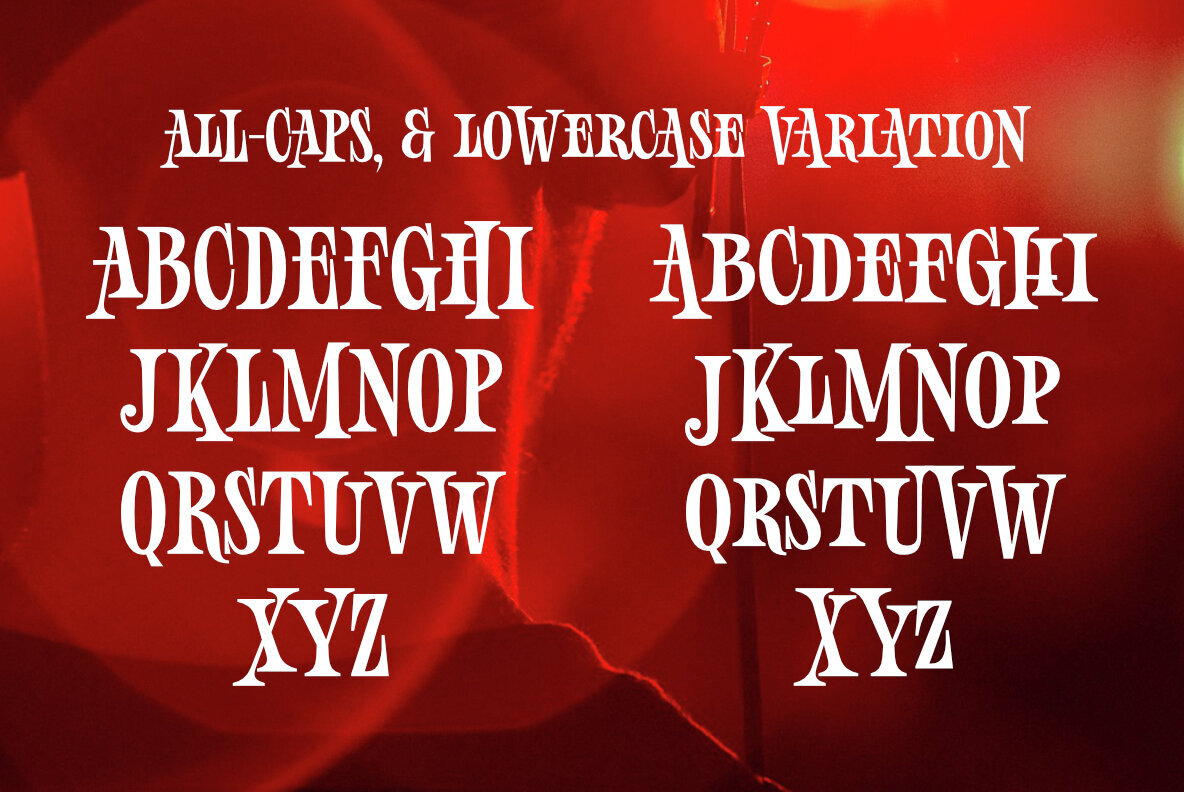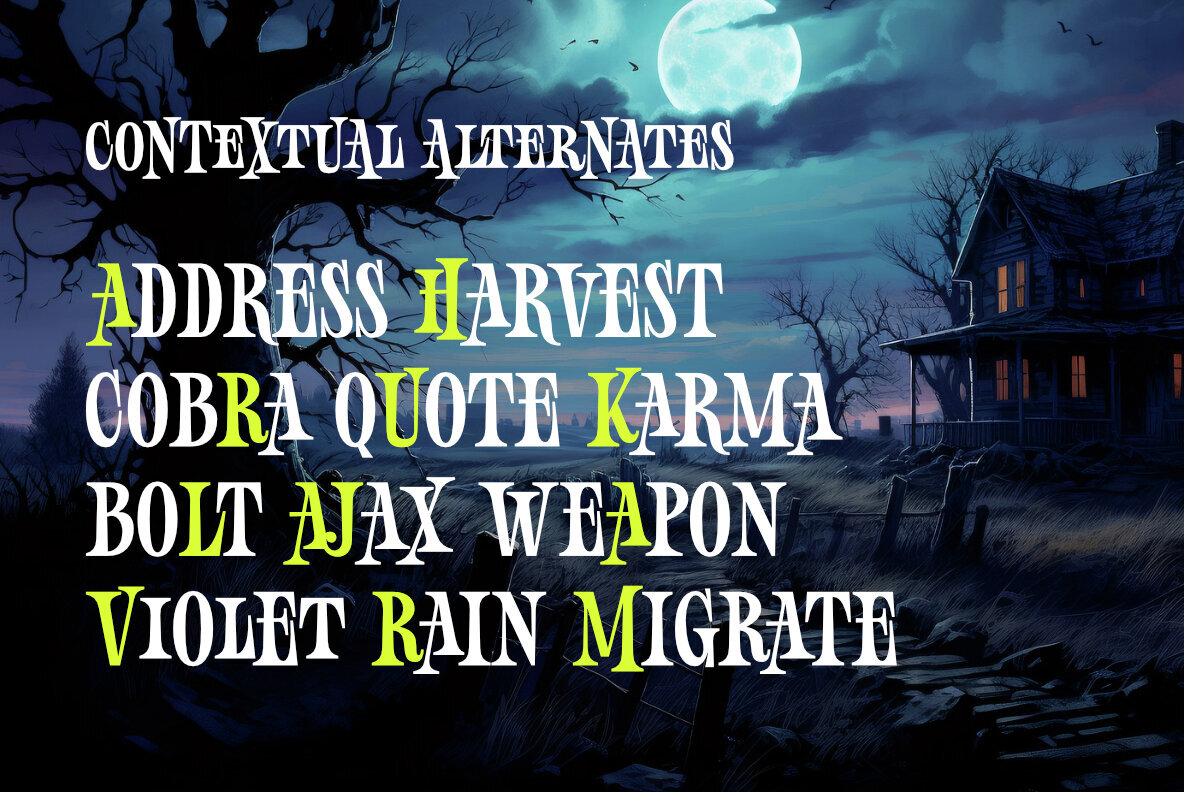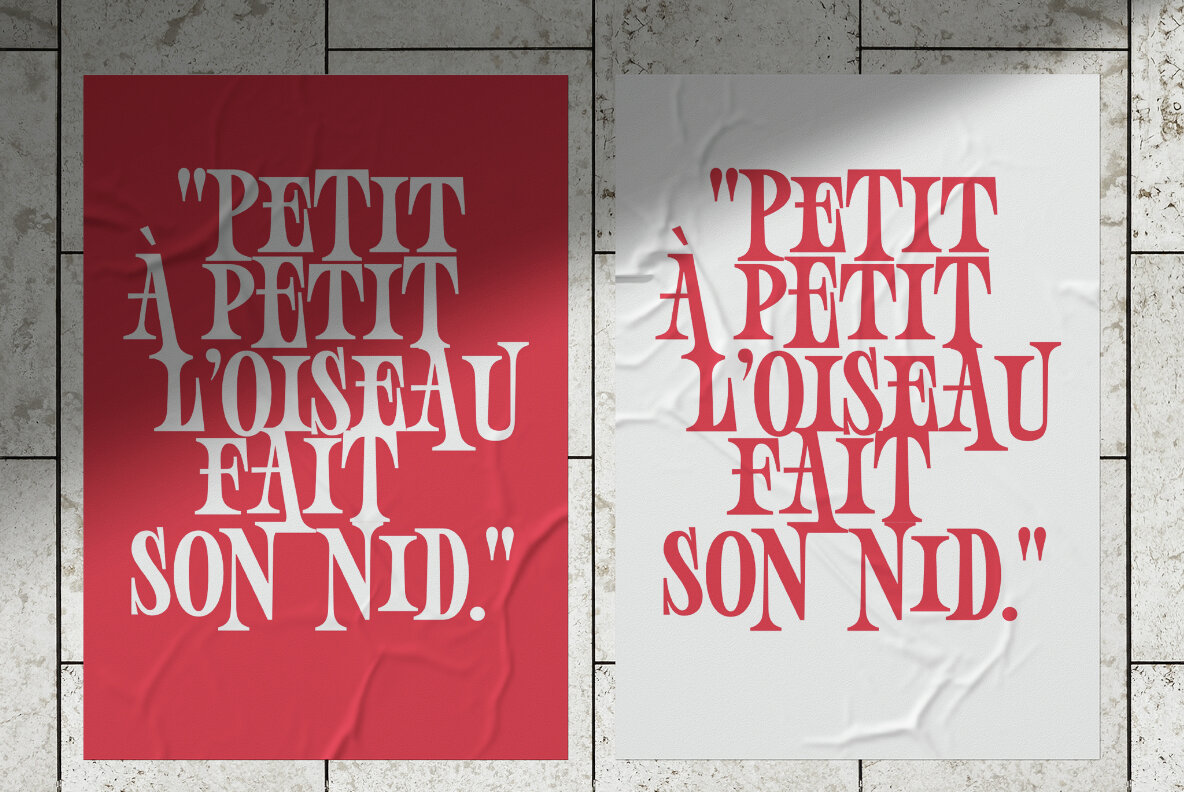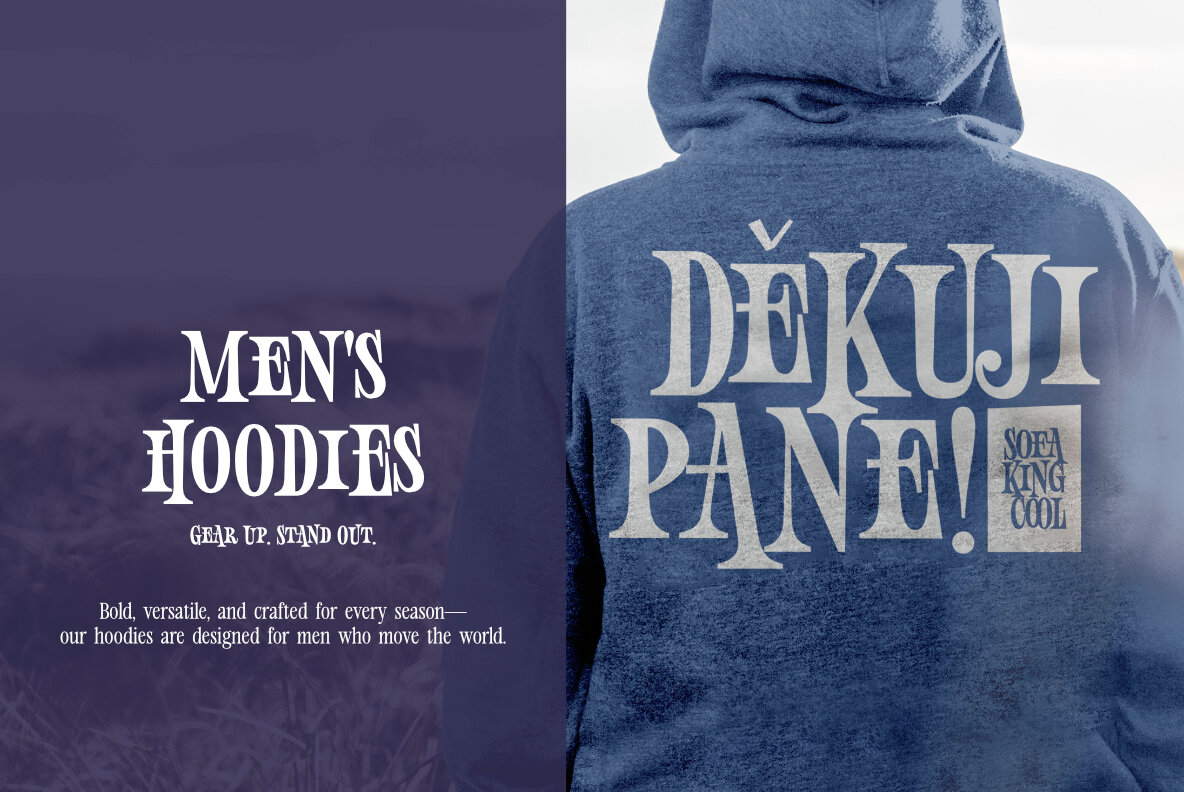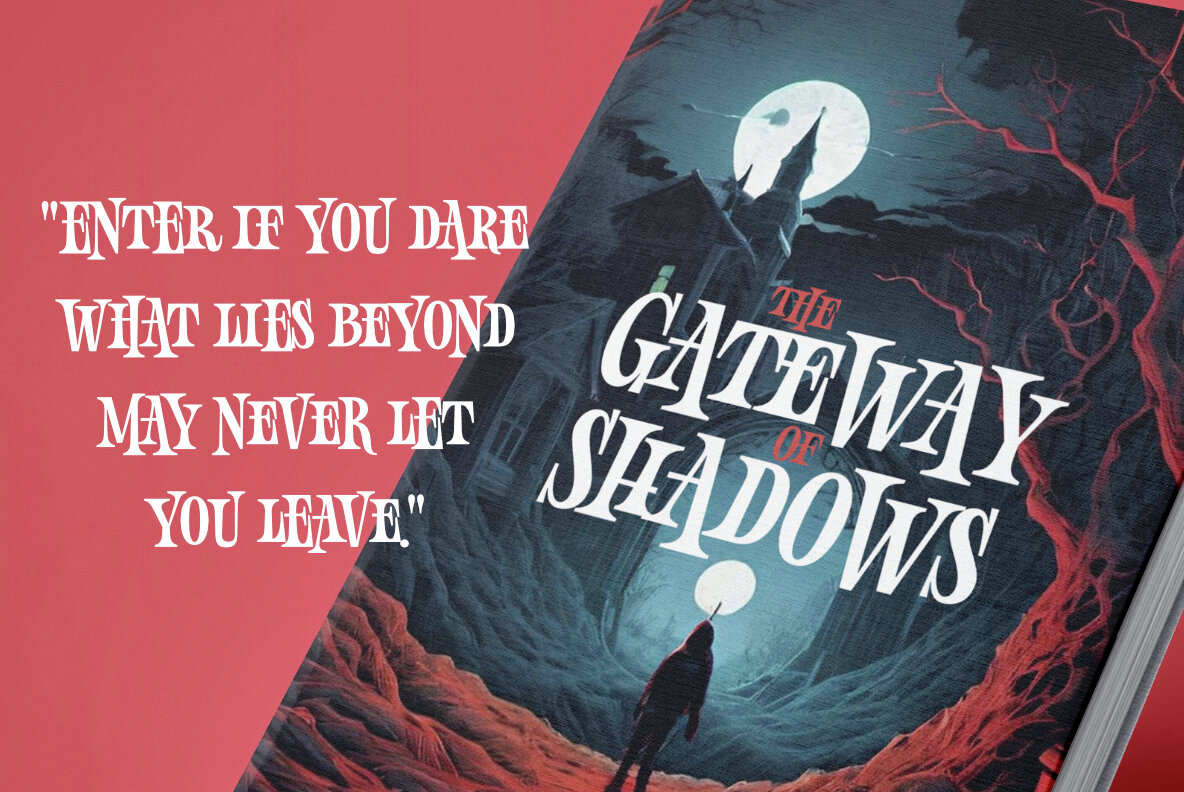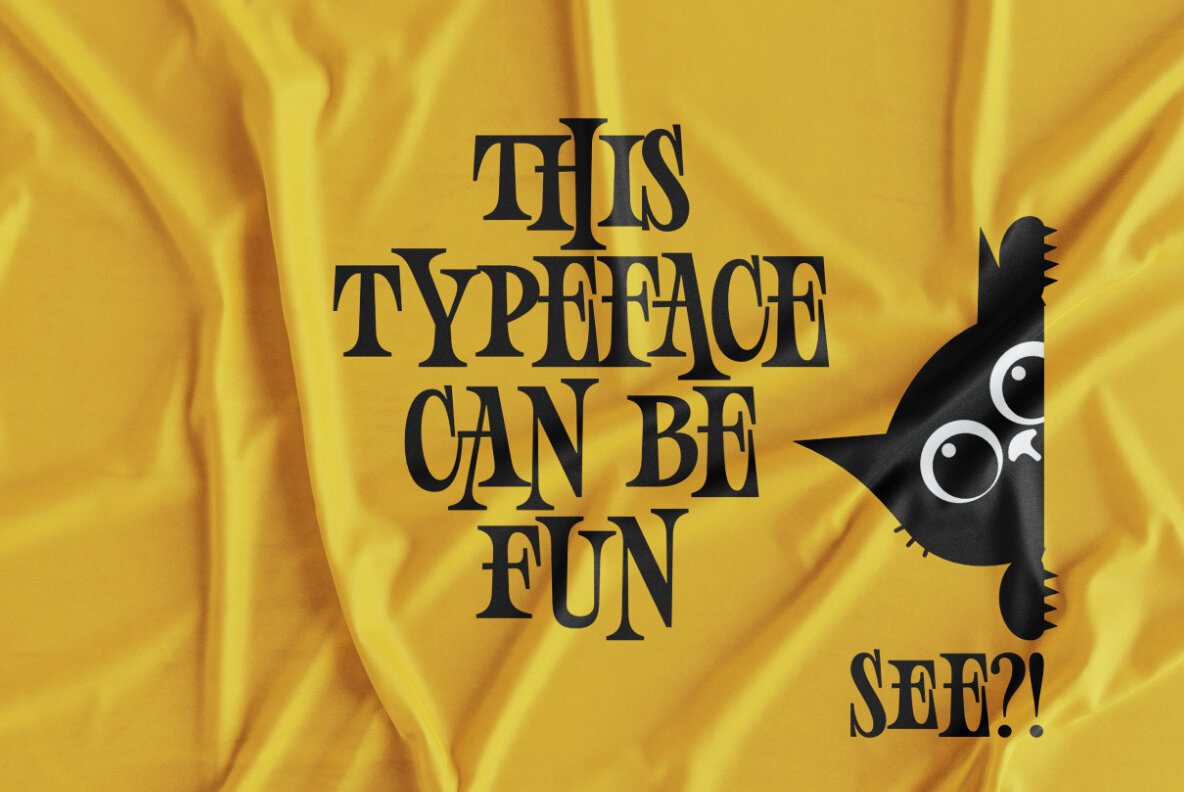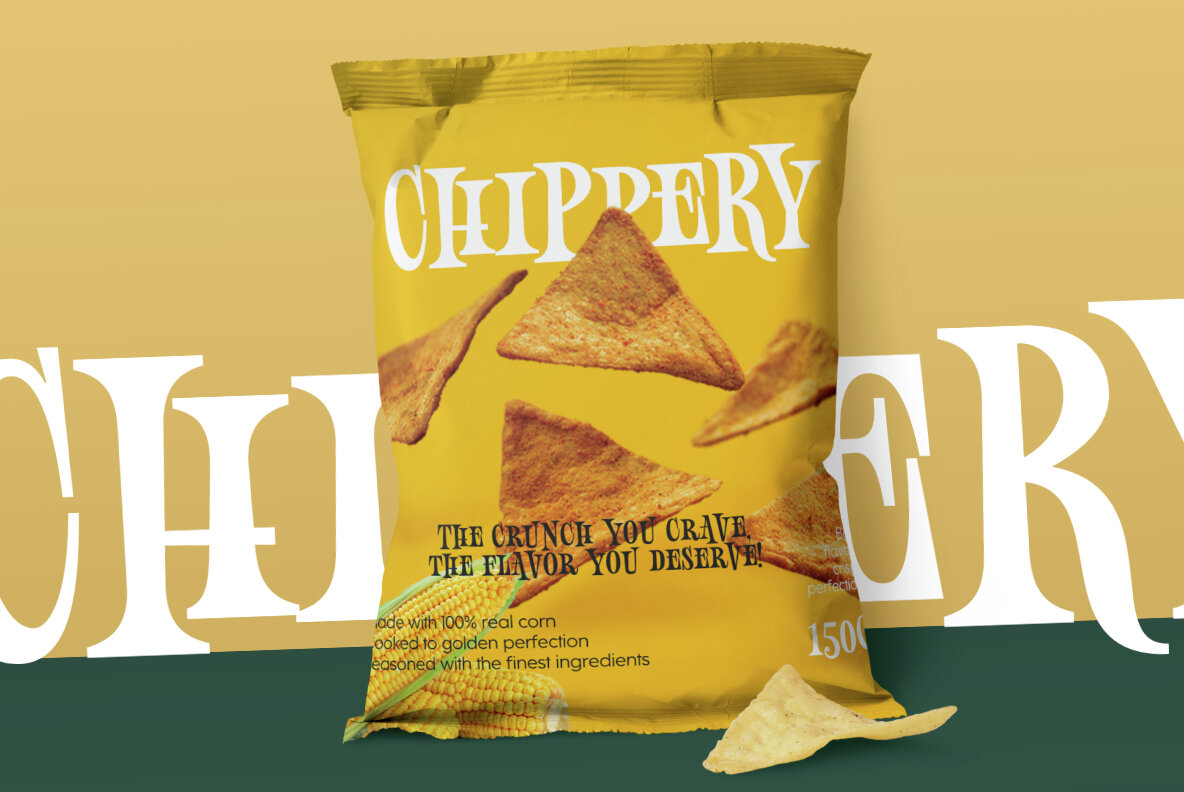
Wobblin Font
Wobblin Regular
Wobblin is an all-caps, bouncy condensed serif font characterized by its confident structure and quirky details. This versatile typeface includes a lowercase variation, making it adaptable for various design needs. With a bold and slightly masculine energy, Wobblin makes a statement through its unique design, featuring a playful movement from its irregular baseline. The font subtly hints at a horror aesthetic, adding an intriguing edge to your projects.
The carefully crafted serifs are smooth, avoiding jagged edges while maintaining a crisp, polished appearance. This dynamic design is perfect for striking a balance between strength and charm. Ideal for bold branding, playful packaging, or editorial projects seeking a hint of mystery, Wobblin offers a unique blend of style and versatility.